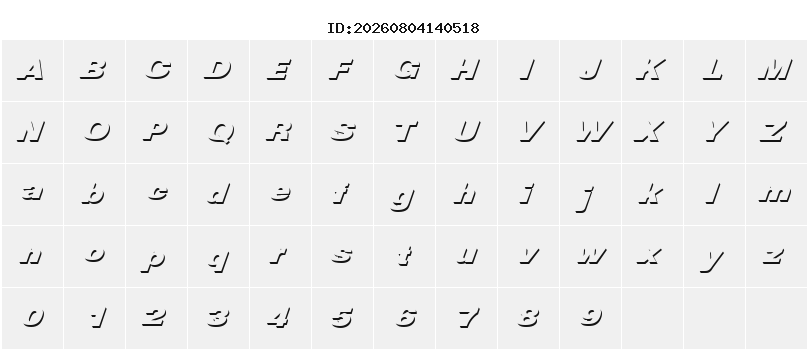
Nimbus Sans Becker DiaOnlShaD Preview
• Font Name: Nimbus Sans Becker DiaOnlShaD
About Nimbus Sans Becker DiaOnlShaD.ttf
Nimbus Sans Becker DiaOnlShaD.ttf is a modern, elegant sans-serif font designed for ultimate readability and visual harmony. Perfect for branding, headlines, web design, and print materials.